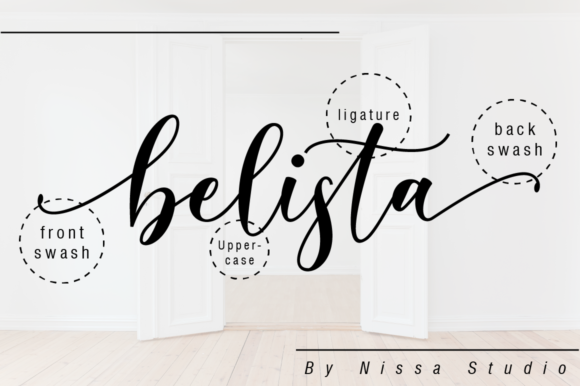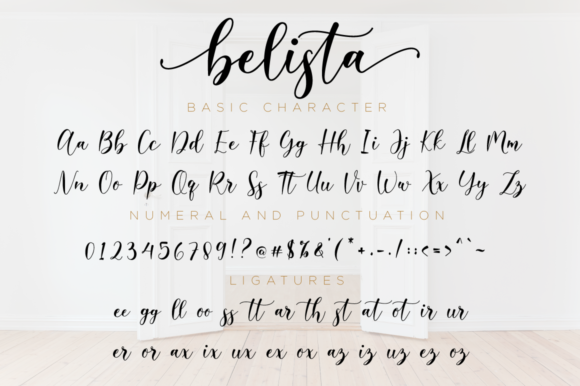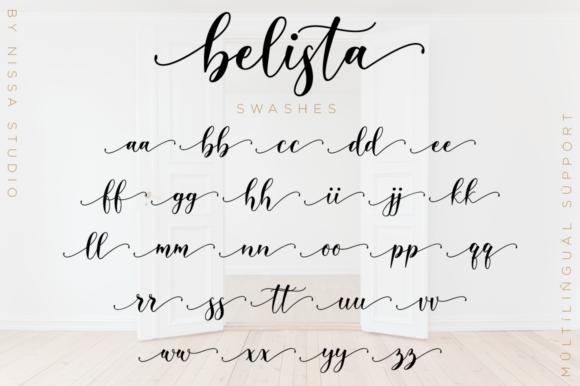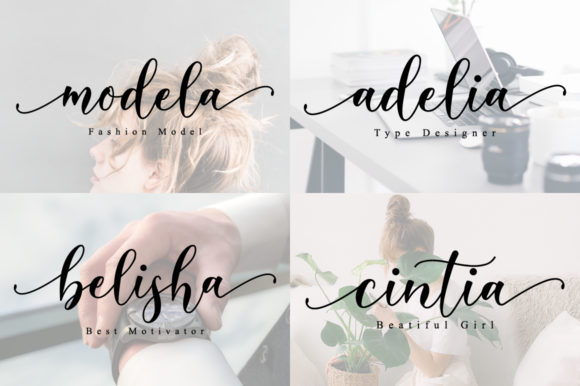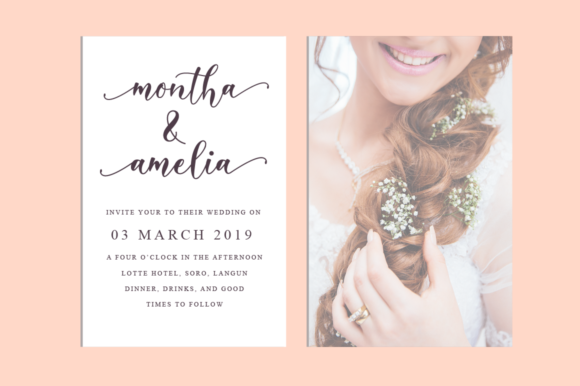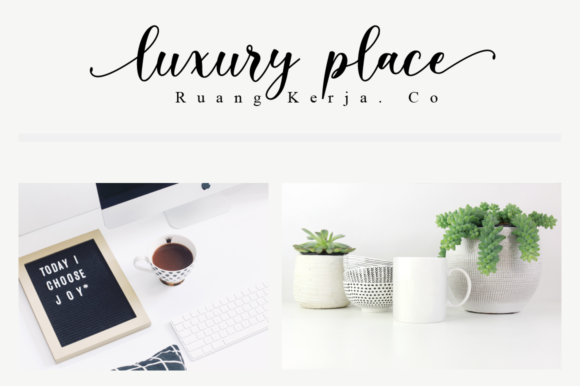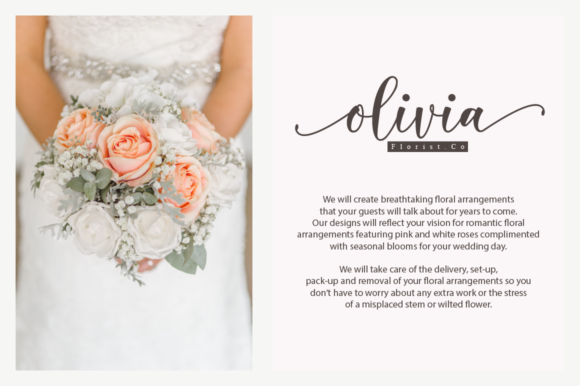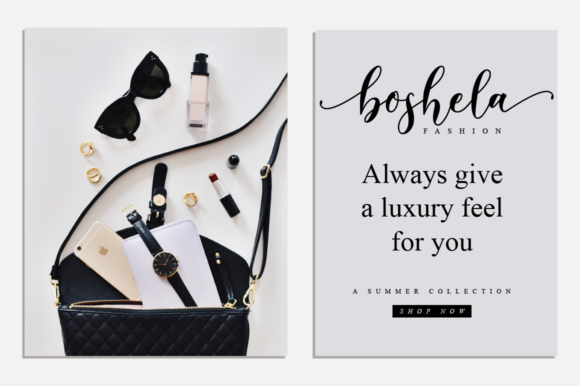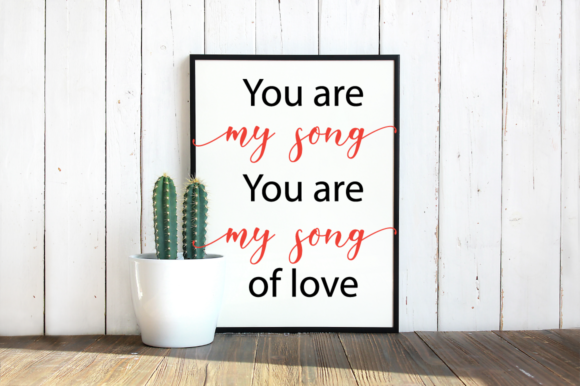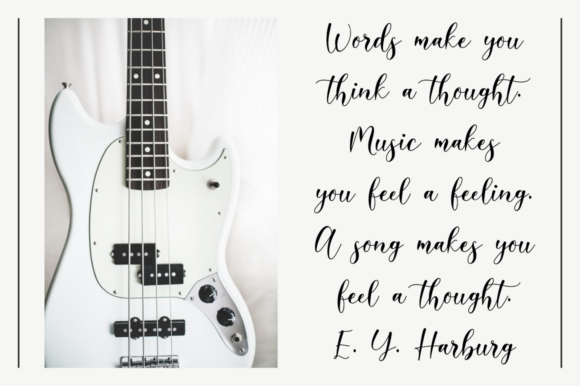
Belista Script Font
About Belista Script Font
Belista is a beautiful and light script font with an amazing feel. It will turn any design project into a stand out!